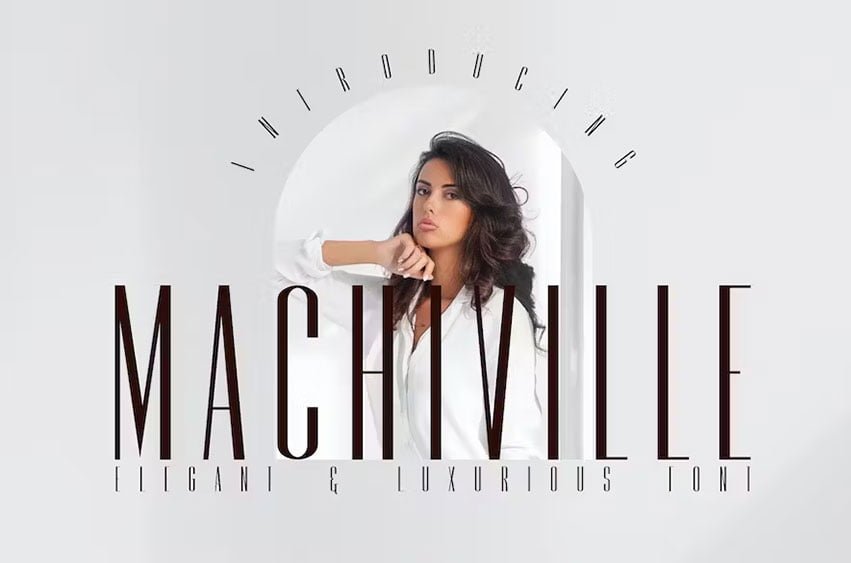
Machiville Font Glossy and shiny is what this font brings. font suitable for use in the world of women’s fashion. trinkets such as bags, pouchs, women’s shoes, glasses, bags, magazines are good targets for using this font.
Machiville Font Preview